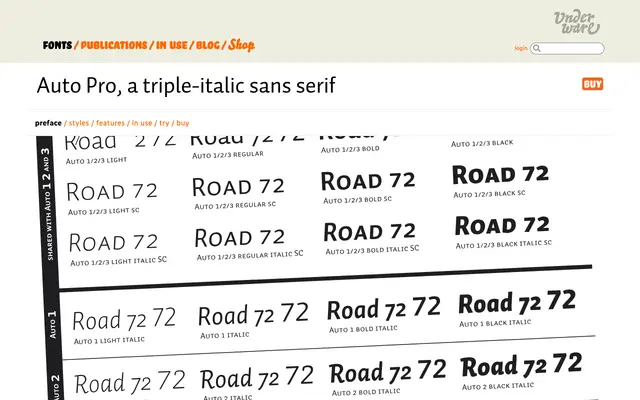
A humanist sans-serif from Underware designed for sustained reading with warm, approachable letterforms.
Auto is a humanist sans-serif from the Dutch foundry Underware, conceived for text setting where legibility and personality need to coexist. The design draws on the warmth and optical refinement characteristic of the Dutch type tradition. It suits editorial, book and interface work that benefits from a sans with more character than a neutral grotesque.
Underware's Auto is a humanist sans-serif with warm, rounded characteristics typical of the Dutch type tradition, balancing legibility with personality across multiple weights and styles.